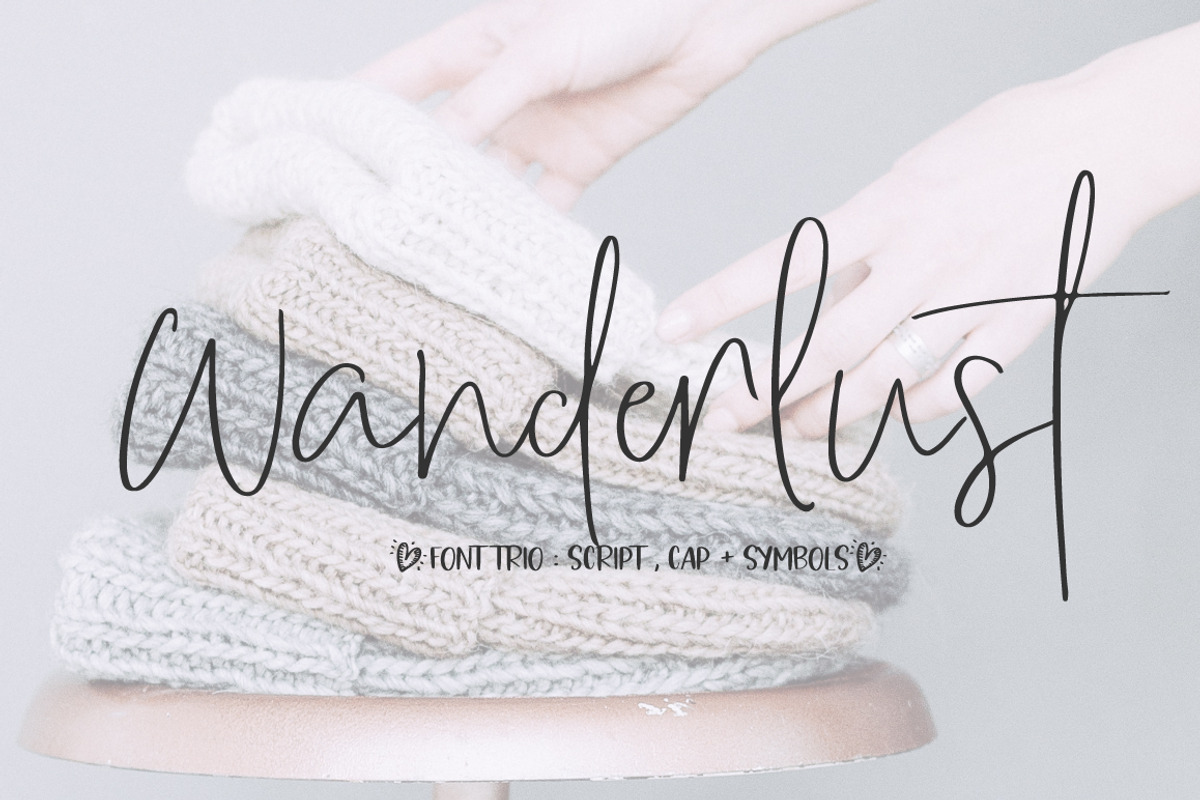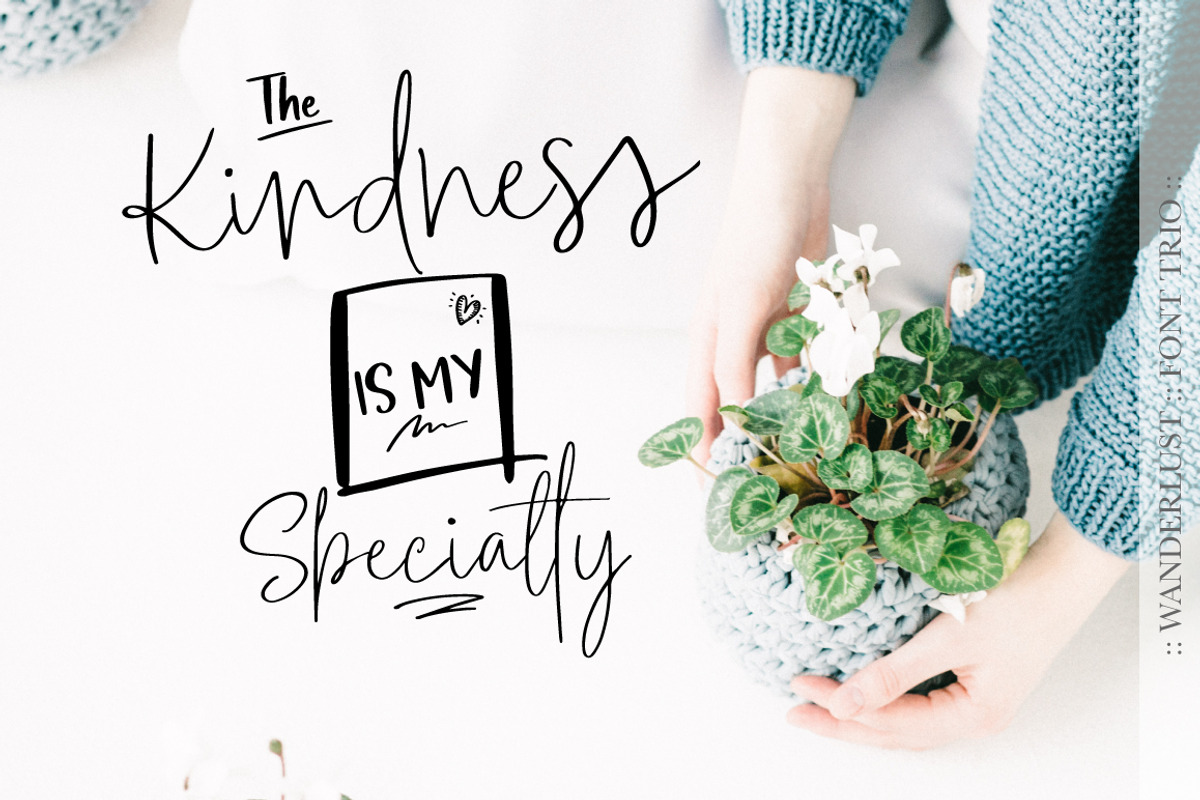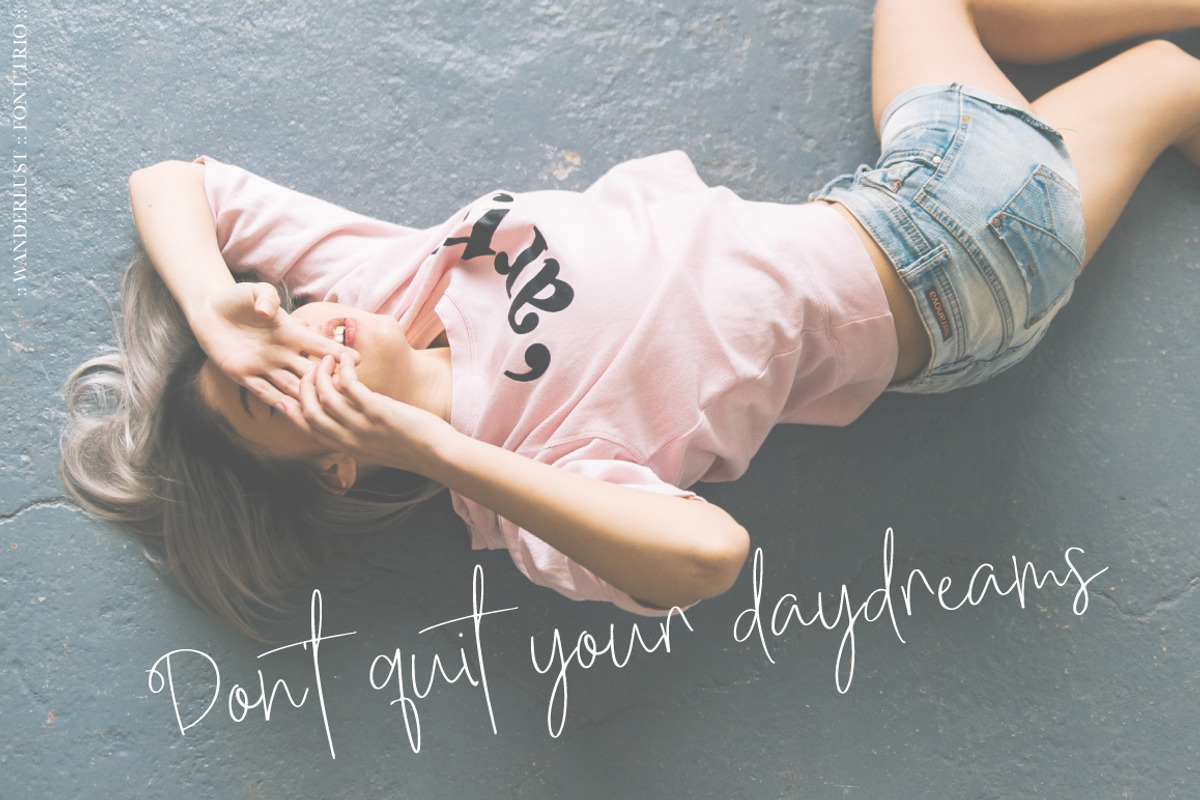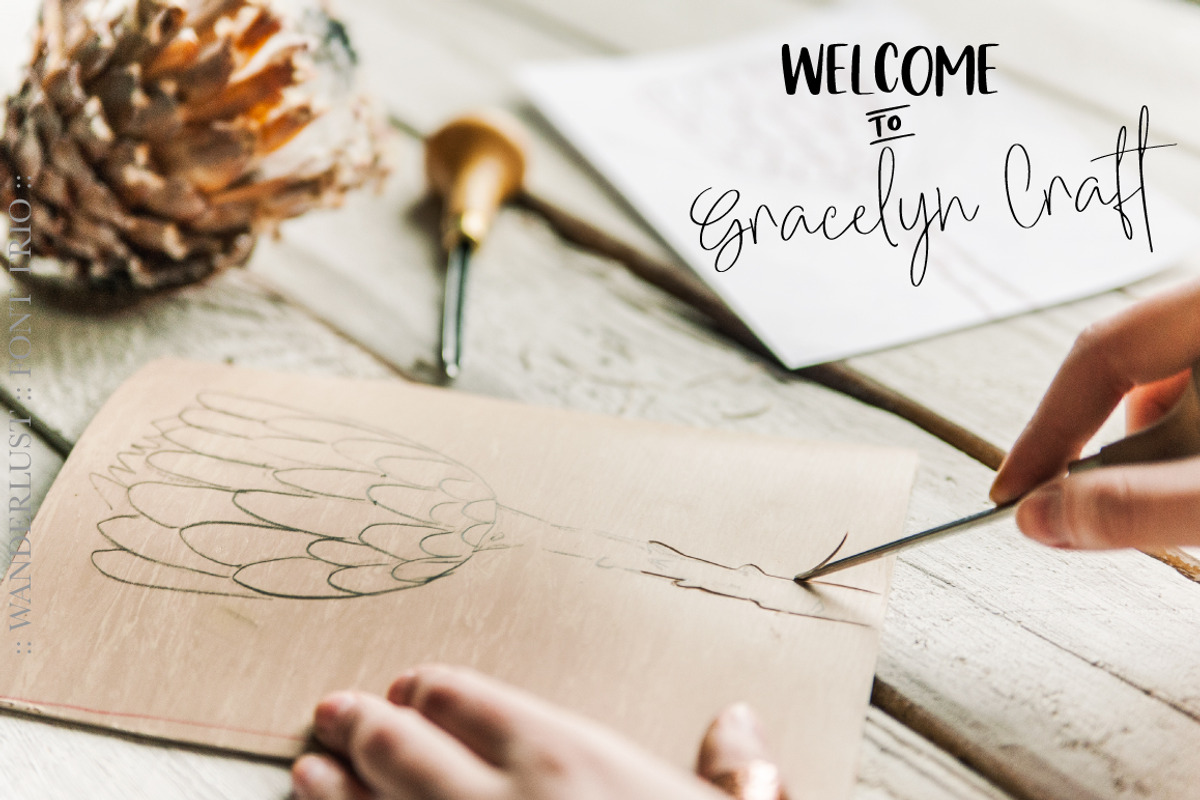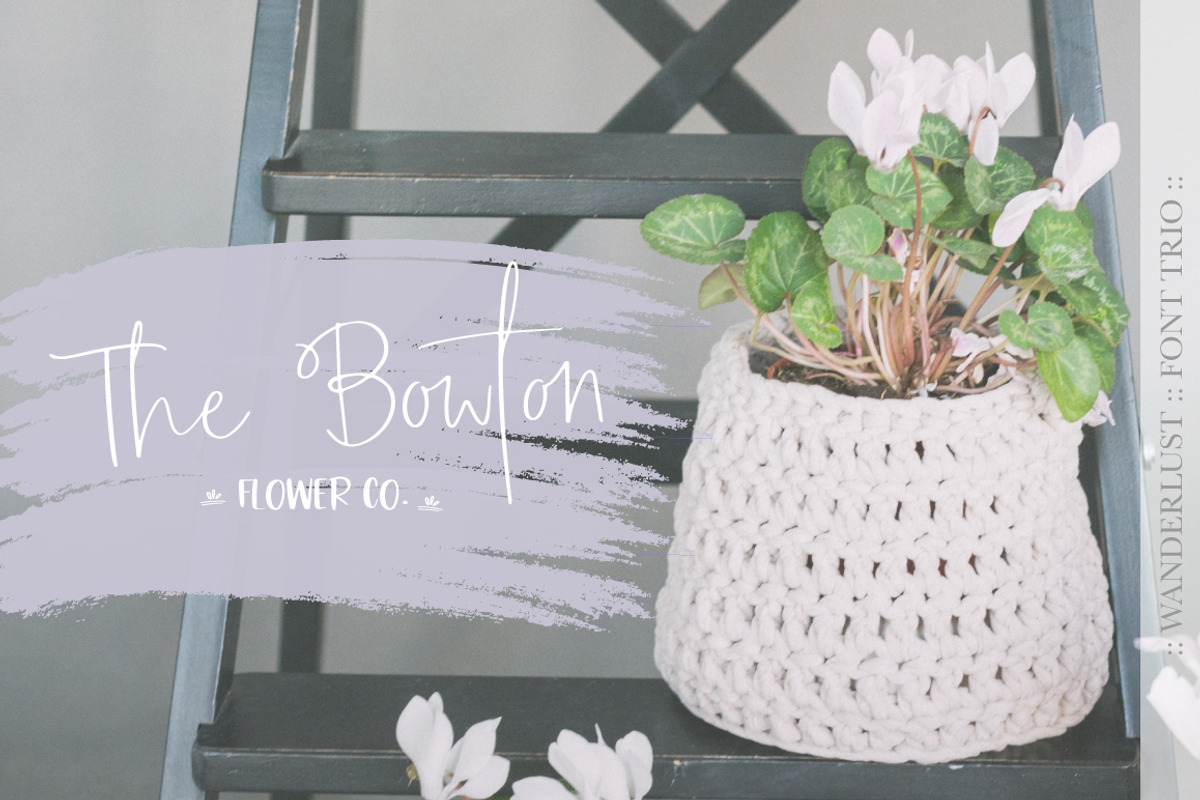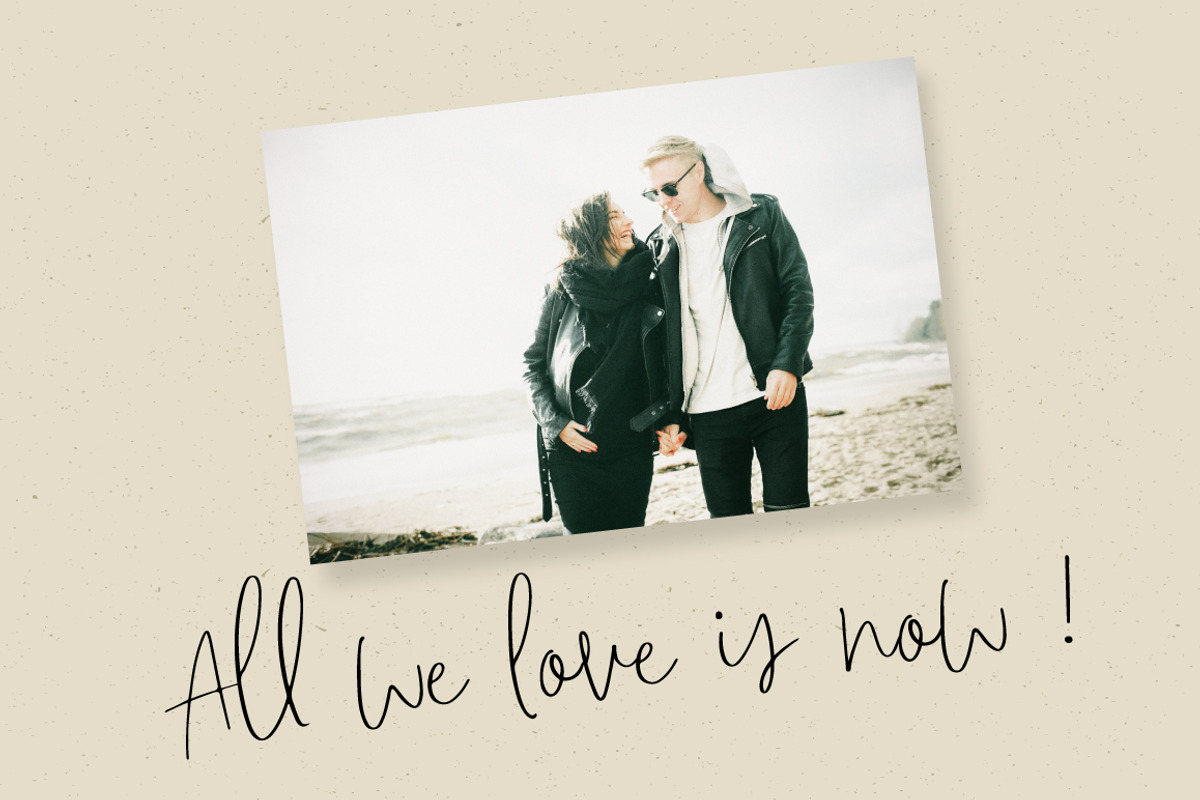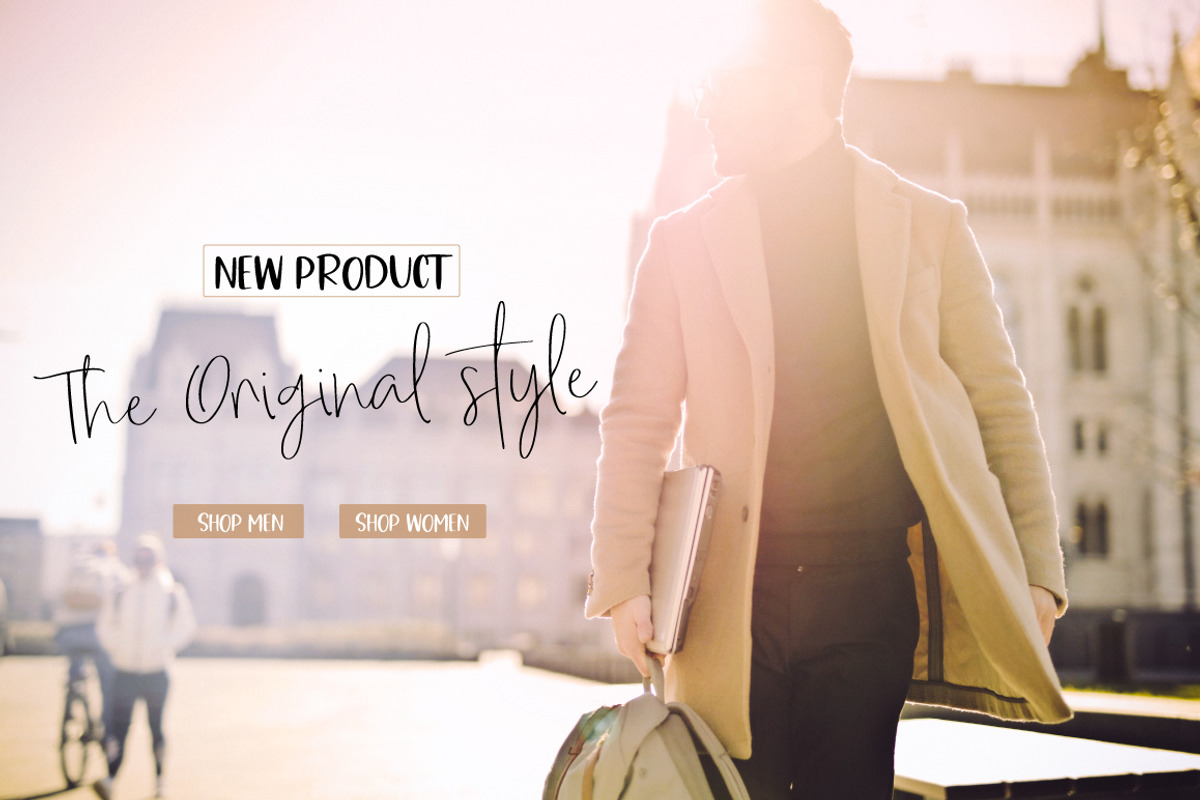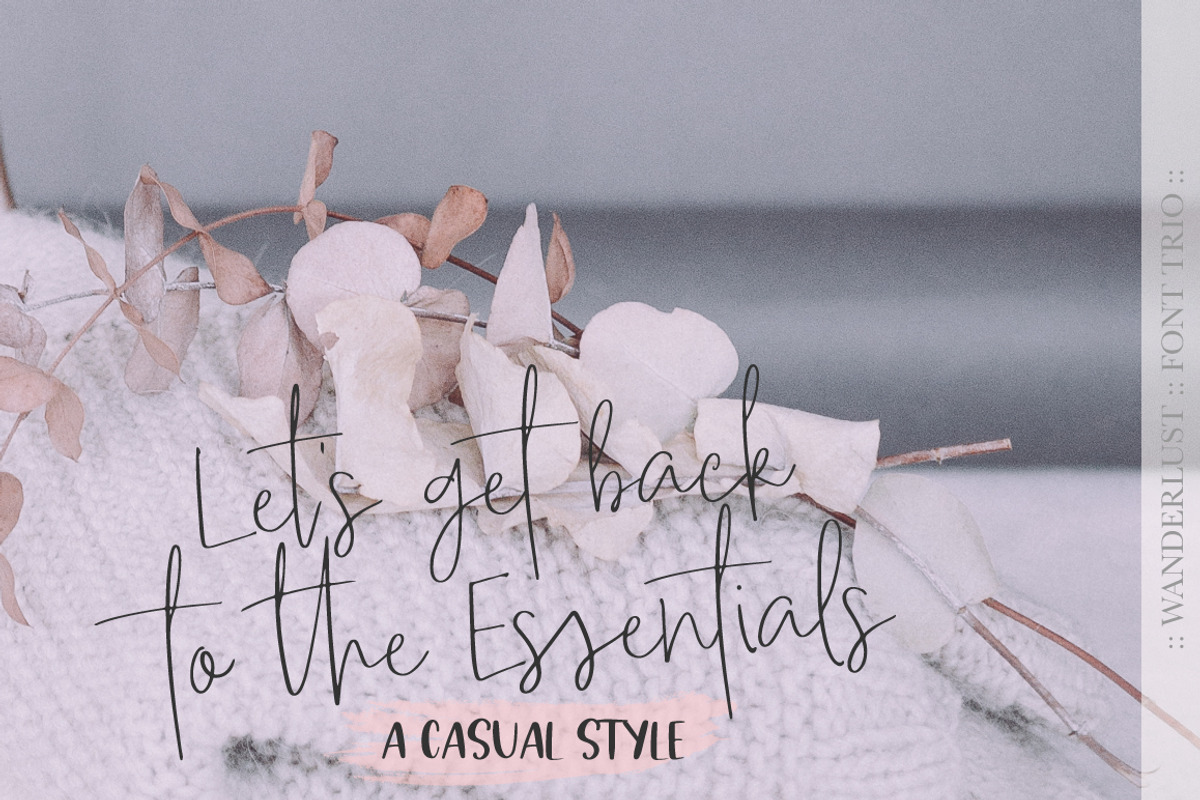
Wanderlust Font Trio
Introducing Wanderlust script font - A fashionable font perfect for high impact headlines
Every single letter has been creative carefully and Perfectly Playful new font pair. This font is a perfect script designed for making your set of invitations, Brand, blog posts, and more completely beautiful
The script has alternate upper and lowercase character set
And you get 78 Ligatures
includes 3 fonts: a script style, all caps and symbols font. All styles were designed to pair perfectly together
Wanderlust Font Trio by Artstudio fits naturally into Branding, posters, packaging, typography.